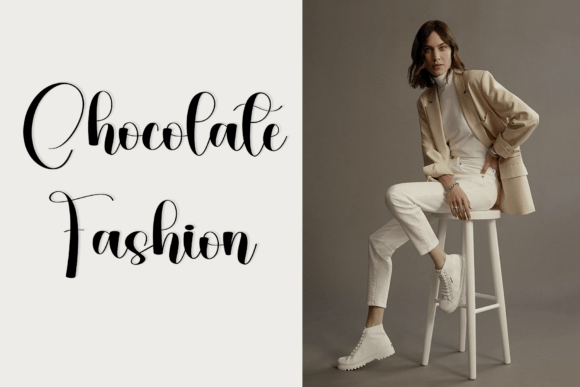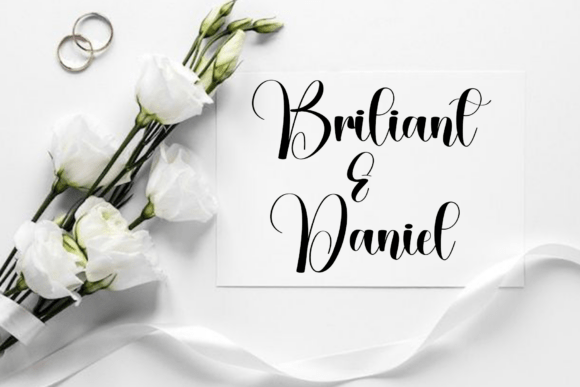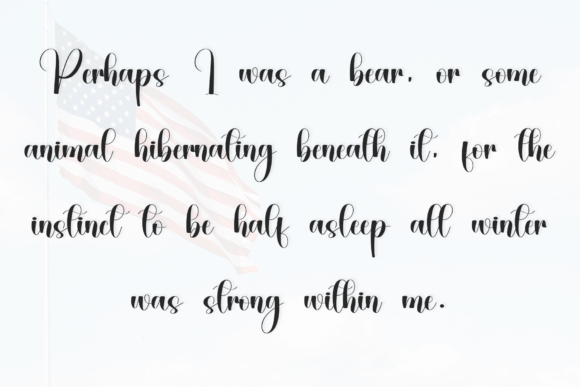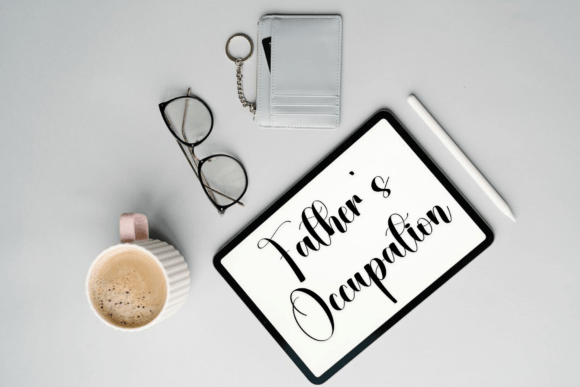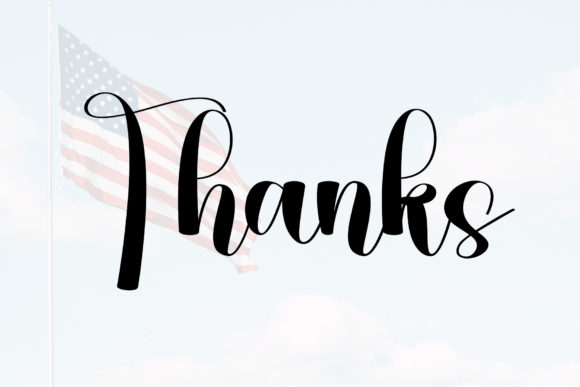
Introducing America Font: A Patriotic Script Font with Modern Elegance
Are you looking for a font that embodies the spirit of freedom and individuality? Look no further than America Font, a stunning handwritten script font that combines patriotic charm with modern elegance. With its bold strokes and stylish curves, America Font is perfect for designers and crafters who want to add a touch of American flair to their creations.
The Inspiration Behind America Font
America Font is a carefully crafted script font that draws inspiration from the rich history and cultural heritage of the United States. Its unique design combines traditional American typography with modern flair, making it a versatile font that’s perfect for a wide range of applications. Whether you’re designing invitations, social media graphics, branding materials, or crafts, America Font is sure to make a statement.
Key Features of America Font
- Bold Strokes: America Font features bold, confident strokes that give it a strong and adventurous feel.
- Stylish Curves: The font’s stylish curves add a touch of elegance and sophistication, making it perfect for designs that require a bit of flair.
- Patriotic Spirit: America Font is infused with a patriotic spirit that’s perfect for designs that celebrate American culture and values.
- Modern Elegance: The font’s modern design ensures that it looks fresh and contemporary, making it perfect for designs that require a modern twist.
Uses for America Font
America Font is a versatile script font that’s perfect for a wide range of applications, including:
- Invitations: Use America Font to create stunning invitations for patriotic events, weddings, and other celebrations.
- Social Media Graphics: Add a touch of American flair to your social media graphics with America Font.
- Branding: Use America Font to create bold and eye-catching branding materials that reflect your American values.
- Crafts: America Font is perfect for crafters who want to add a personal touch to their DIY projects.
Why Choose America Font?
There are many reasons why America Font stands out from the crowd. Here are just a few:
- Unique Design: America Font has a unique design that’s unlike any other font on the market.
- High-Quality: The font is crafted with precision and attention to detail, ensuring that it looks great in any application.
- Versatile: The font is versatile and can be used for a wide range of applications.
- Font Type: Handwritten Script Font
- What is America Font? America Font is a handwritten script font that combines patriotic spirit with modern elegance.